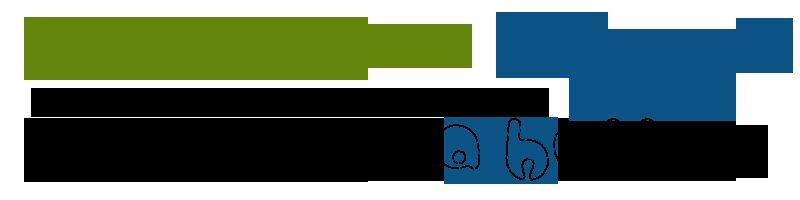
Bubbletea by Andy Greer and Max Infeld of Xerographer.com is a free cartoon display font with plump, wobbling letterforms. Its broad shapes bulge in unexpected places, with tiny openings and softly pinched joins breaking up the mass. The uneven silhouettes feel cheerfully handmade.
Cartoon and comic graphics are its clearest territory, especially for title lettering that should feel silly and physical rather than slick. That same squishy look fits candy packaging, children's event posters, and playful merchandise aimed at young audiences, novelty brands, and toy makers drawn to deliberately goofy lettering.